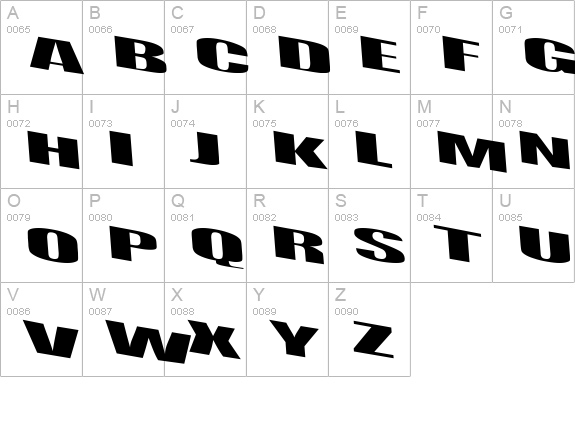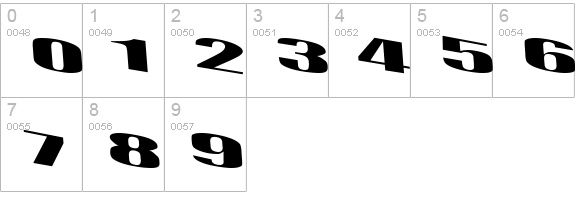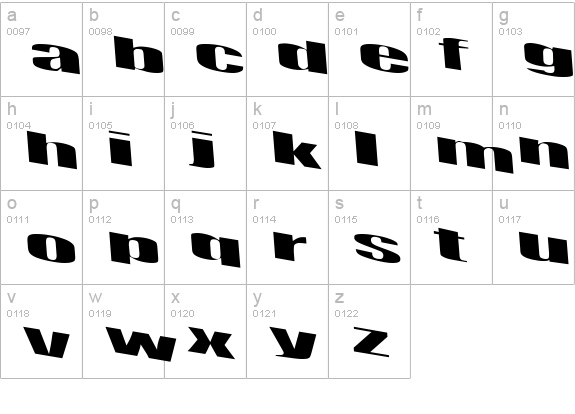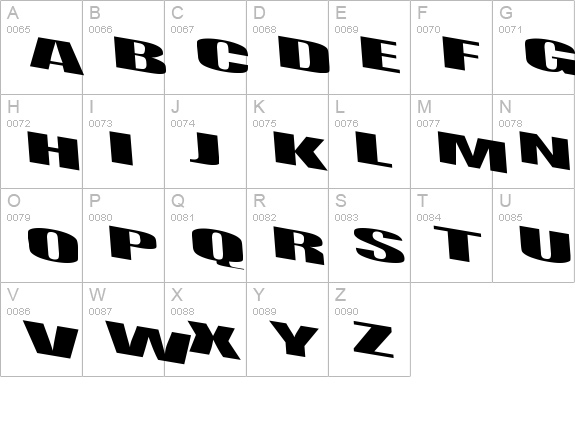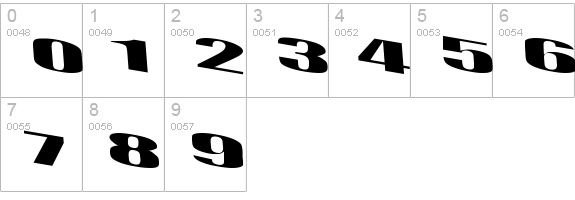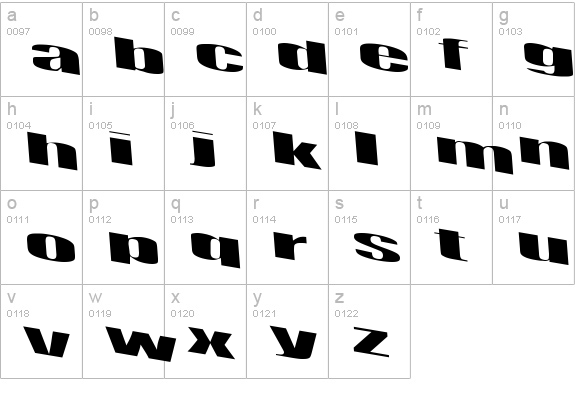
Retsyn Dilated Font Details
Introducing Retsyn Dilated font, a captivating typeface that effortlessly combines modernity with a touch of nostalgia. This unique font draws inspiration from the iconic retro designs of the past, while also incorporating sleek and contemporary elements, resulting in a truly versatile and eye-catching display. Retsyn Dilated font features a distinct dilated style, where each letter is thoughtfully expanded, creating a visually stunning effect. The carefully crafted curves and sharp angles give this font a sense of dynamism and energy, making it perfect for attention-grabbing headlines, impactful titles, and innovative branding projects. What sets Retsyn Dilated font apart is not only its striking aesthetics but also its accessibility. This font is freely available to download at FontsMarket.com, allowing designers, creatives, and enthusiasts to effortlessly incorporate this exceptional typeface into their projects. From posters to websites, logos to social media graphics, Retsyn Dilated font will undoubtedly make a memorable impression. With a wide range of uppercase and lowercase characters, numerals, punctuation marks, and special symbols, Retsyn Dilated font offers endless possibilities to experiment and create stunning designs. Its versatility extends beyond its primary purpose, as it can also be used for editorial layouts, packaging designs, apparel, and so much more. Whether you're aiming for a bold and edgy look or a subtle and elegant touch, Retsyn Dilated font is the perfect choice to elevate your designs. Its seamless blending of past and present aesthetics, combined with its freely accessible nature, makes it a must-have addition to any designer's arsenal. Download Retsyn Dilated font today at FontsMarket.com and embark on a creative journey that seamlessly merges the essence of bygone eras with the demands of modern design. Unleash your imagination and let Retsyn Dilated font be the driving force behind your next visually captivating masterpiece.